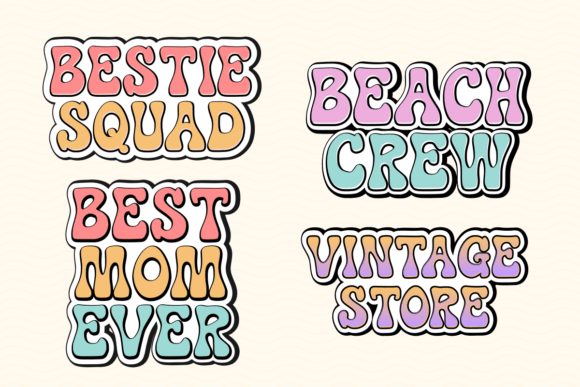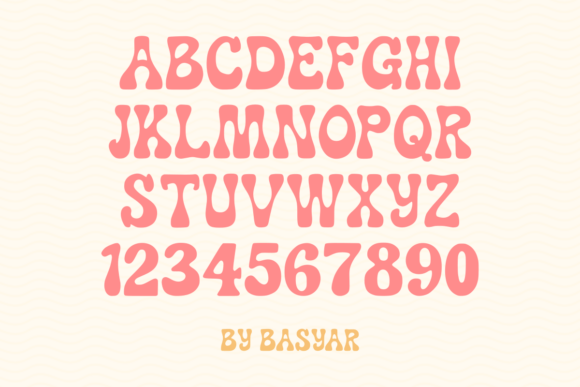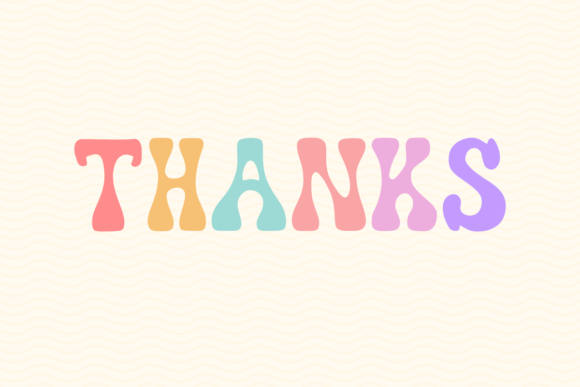
Bestie Font
Introducing Bestie, a fun, bubbly font that brings a soft, retro vibe with its rounded, groovy characters. Perfect for playful projects, this font combines nostalgic charm with a modern twist. Its friendly, hand-drawn look is ideal for children’s products, summer designs, invitations, party graphics, and branding that needs a touch of warmth and whimsy. With a versatile and vibrant style, Bestie will make any text pop with positivity and charm!